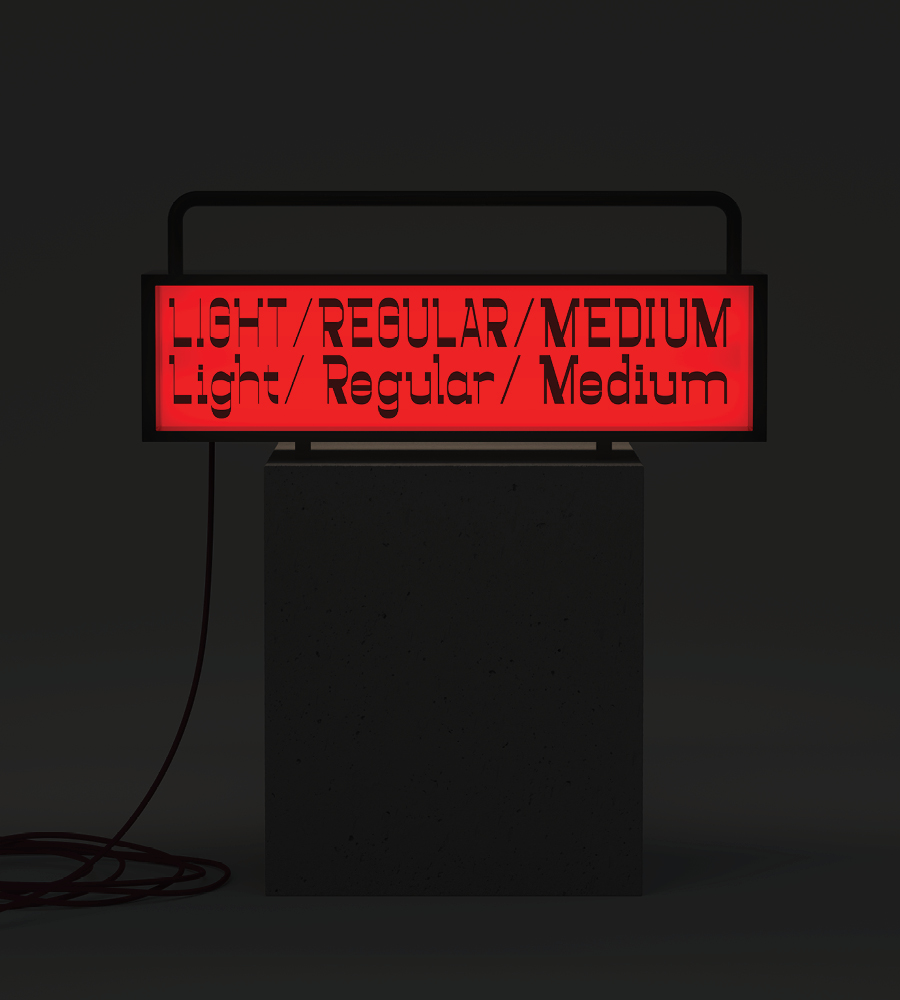
Supernova is a stylistic display font developed within a set grid. Perfectly suited for headlines, large-format prints, brand identities, social media, advertising, editorial design, posters, magazines, logos, headings, digital and more.
Sf Supernova supports up to 79 different languages such as Spanish, English, Portuguese, German, French, Turkish, Italian, Polish, Kurdish (Latin), Azerbaijani (Latin), Romanian, Dutch, Hungarian, Czech, Serbian (Latin), Kazakh (Latin), Swedish, Croatian, Finnish, Slovak, Danish, Lithuanian, Latvian, Slovenian, Irish, Estonian, Basque, Luxembourgian, and Icelandic in Latin and other scripts.